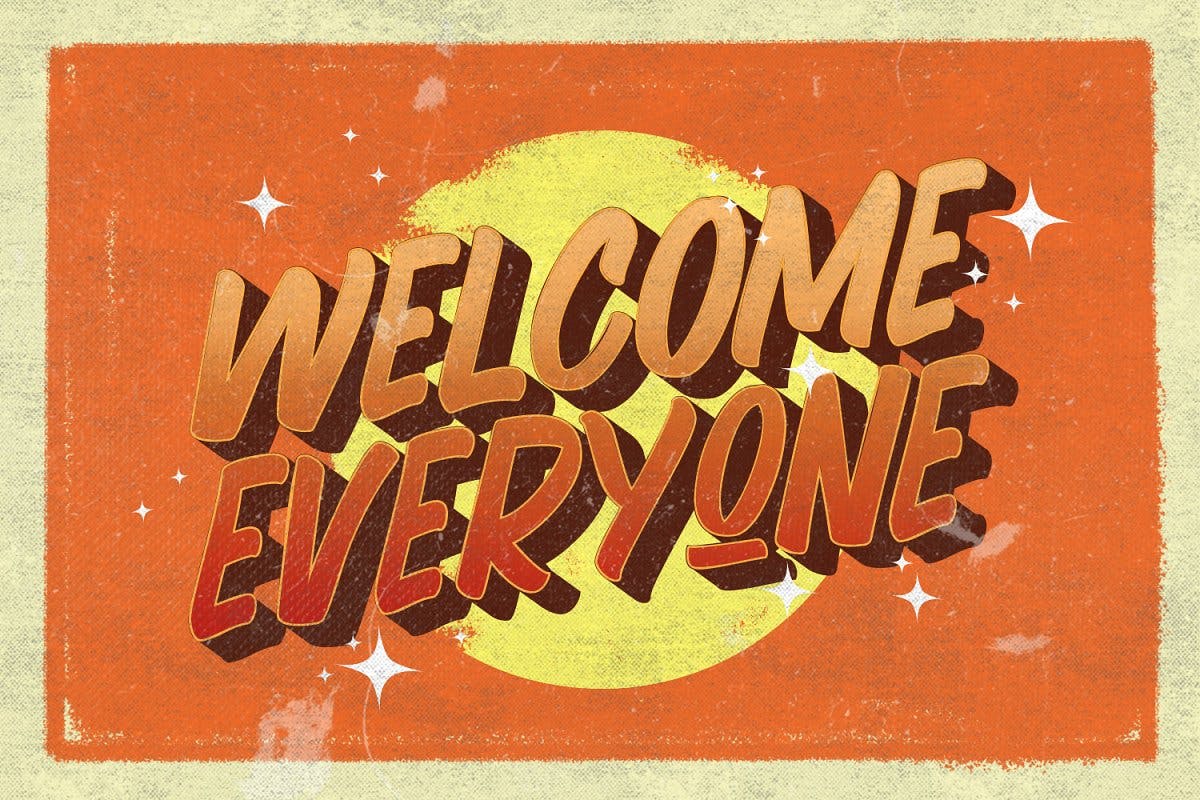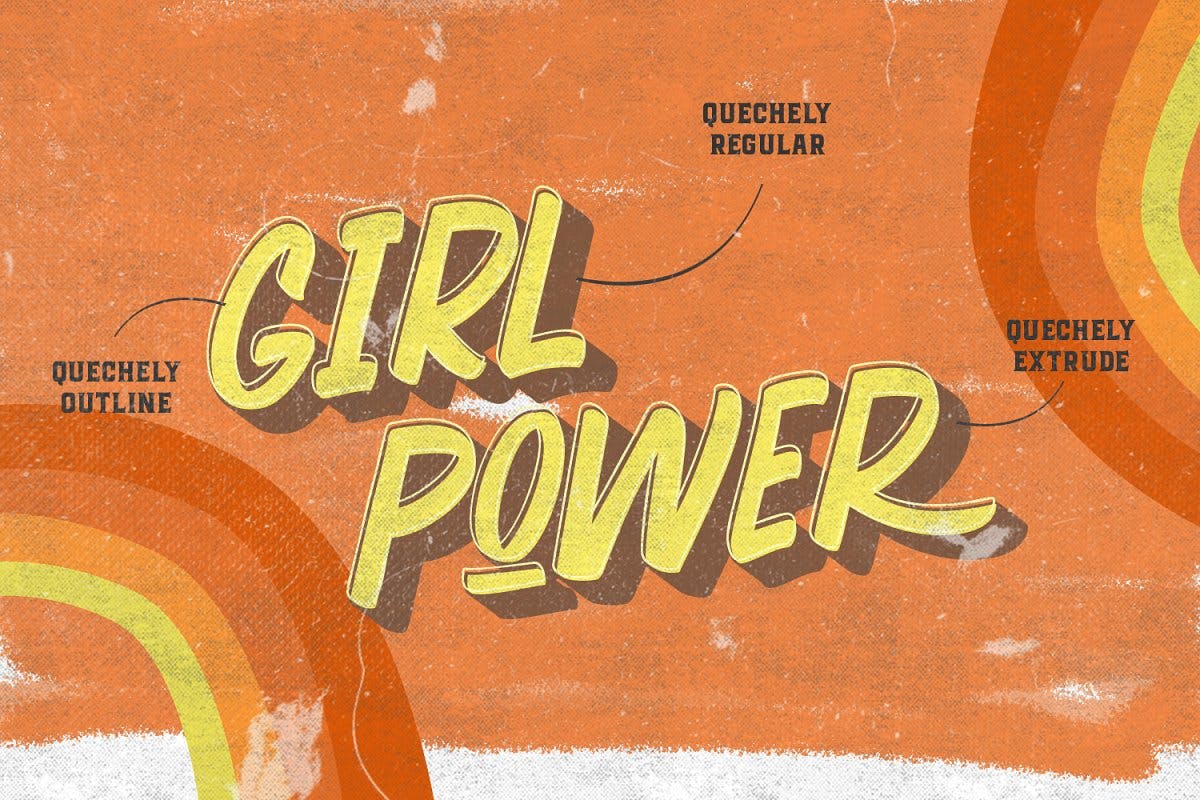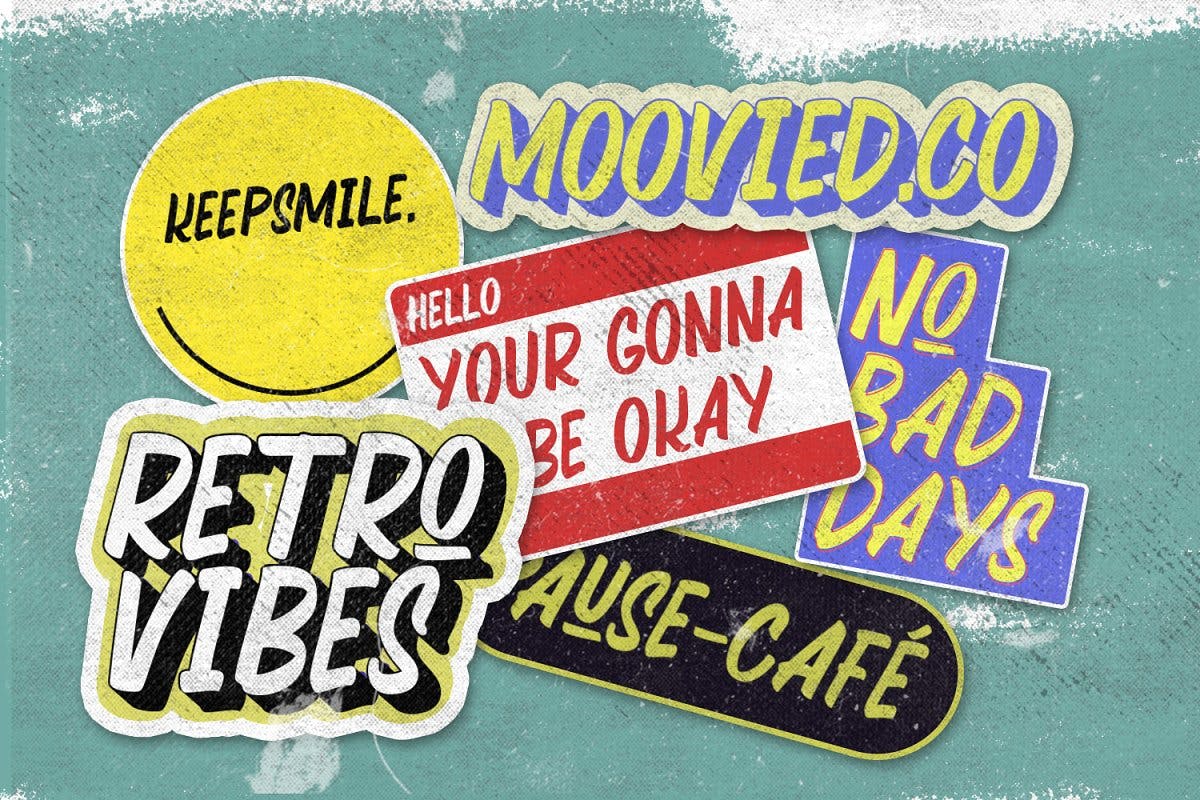
Free Demo Quechely Display Font
Free Demo Quechely Display Font is a new font with a retro design style. It comes with 3 styles which are bold script, line script, and shadow script. Also, this font has a multilingual font that you can apply base on your language. It is perfect for your works such as logos, magazines, flyers, banners, apparel, and much more. Coming with one format file which is OTF that you easily install on your devices as well. However, this free font is only available for personal use license. Therefore, if you need more features, go buy the premium version.